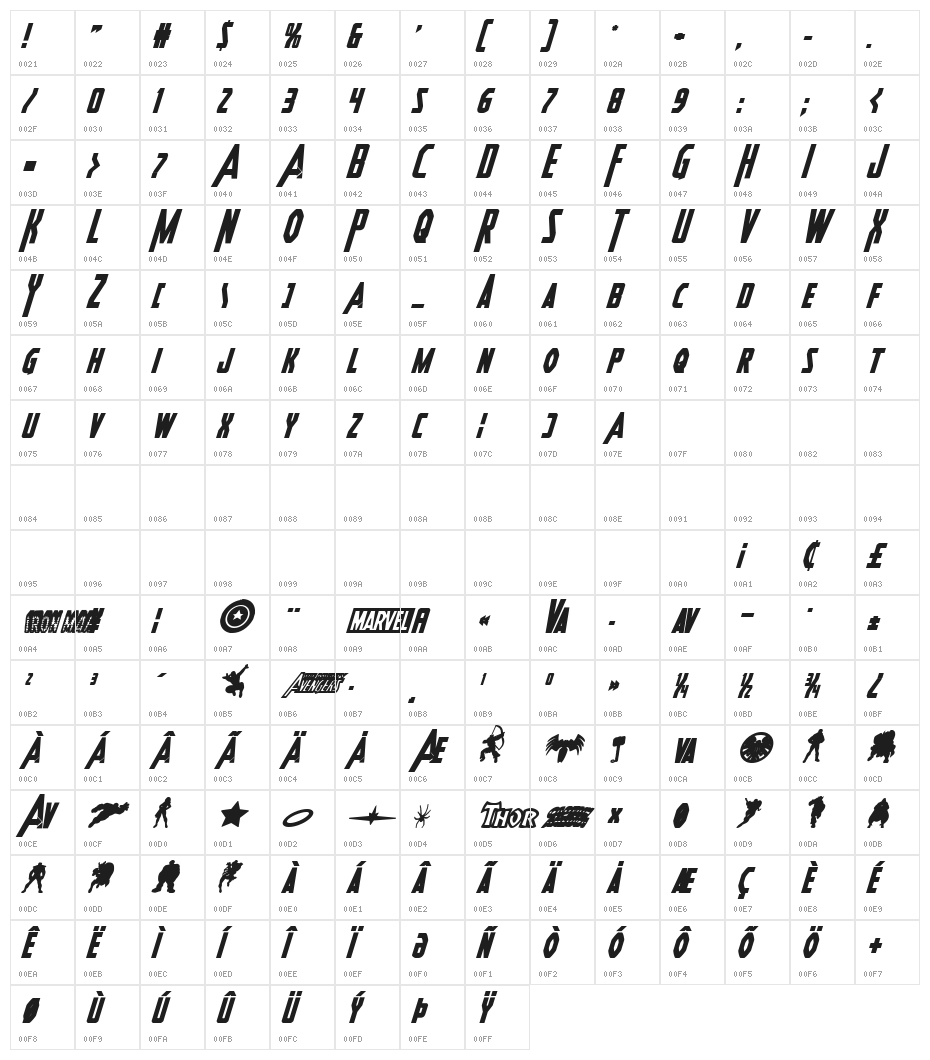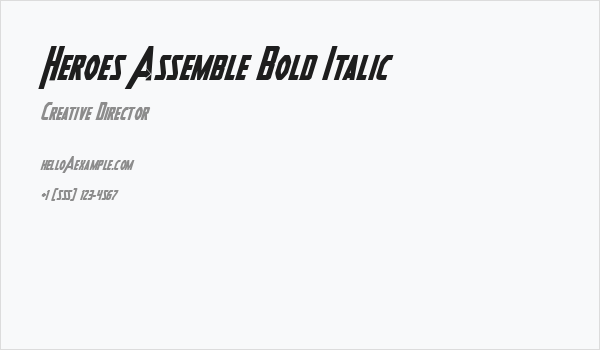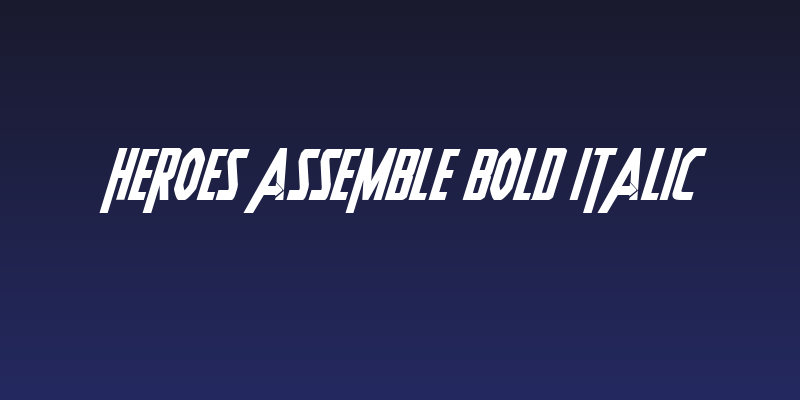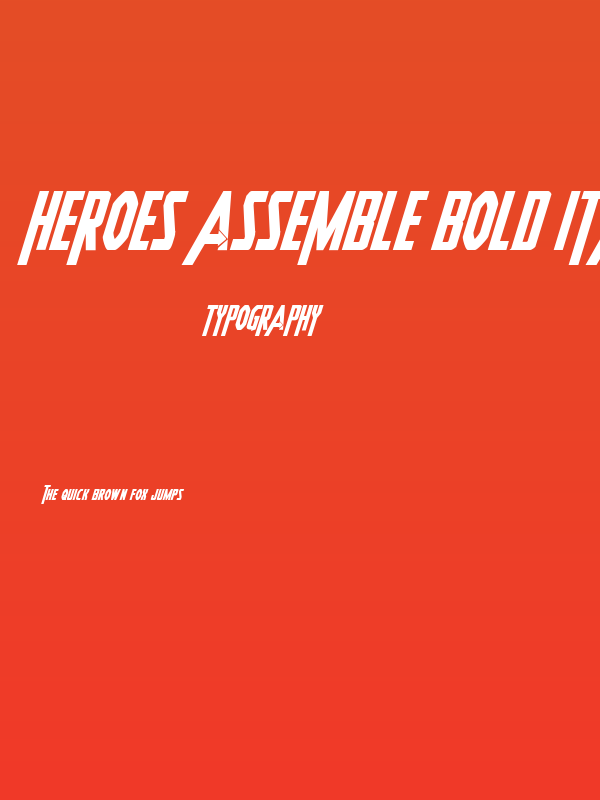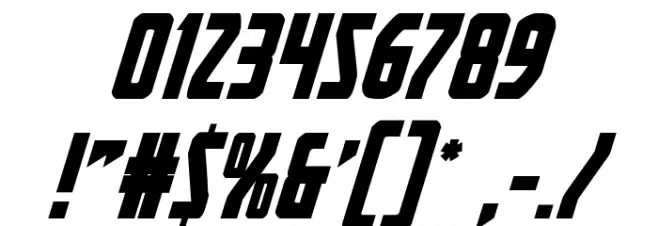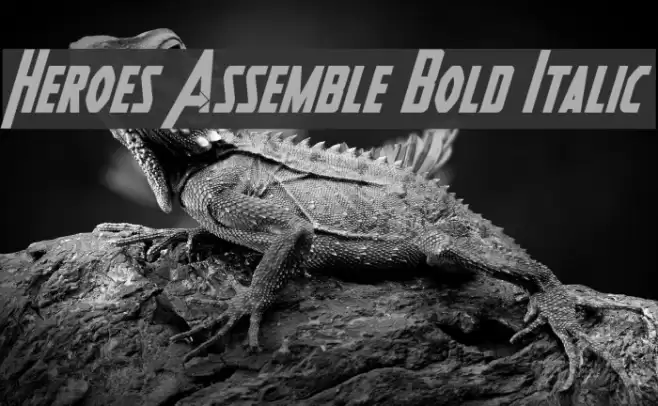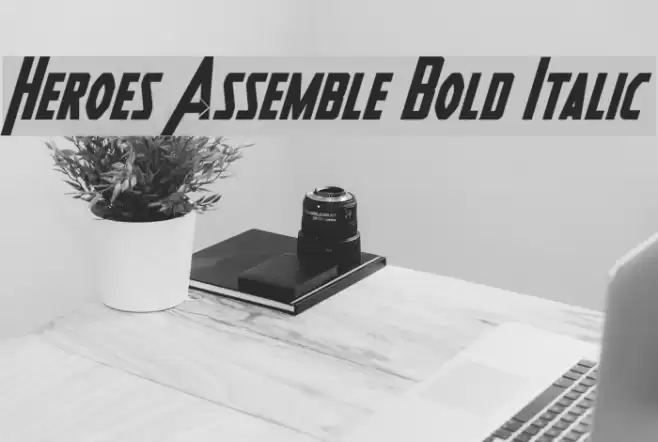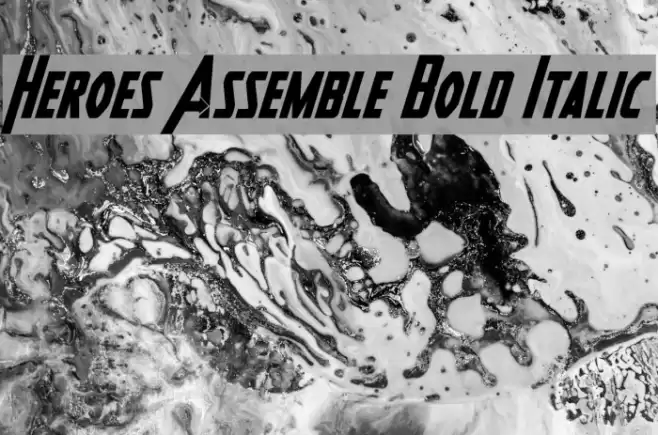
Heroes Assemble Bold Italic Font
Heroes Assemble Bold Italic Description
This font features a bold and italicized style with a strong, dynamic presence. The characters are sharply angled, giving a sense of movement and energy. The uppercase letters are particularly striking, with a futuristic and heroic flair. The numbers and special characters maintain this bold aesthetic, ensuring consistency across all glyphs. The overall design is impactful, making it suitable for attention-grabbing headlines or branding that requires a powerful statement.
| Proposed Projects | Ideal for superhero-themed posters, action movie titles, video game covers, and dynamic branding projects. |